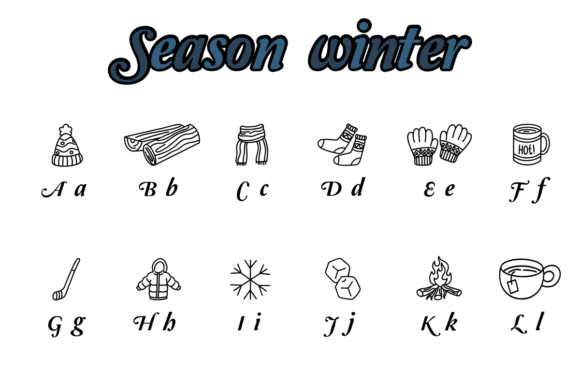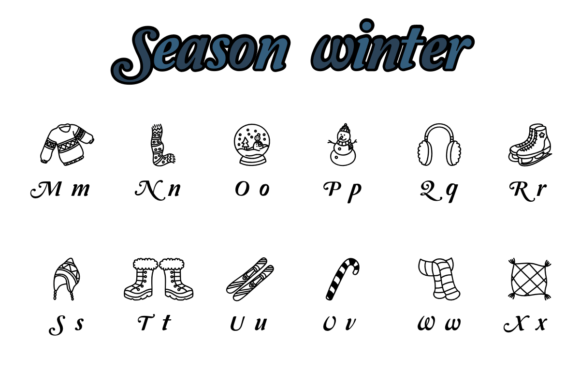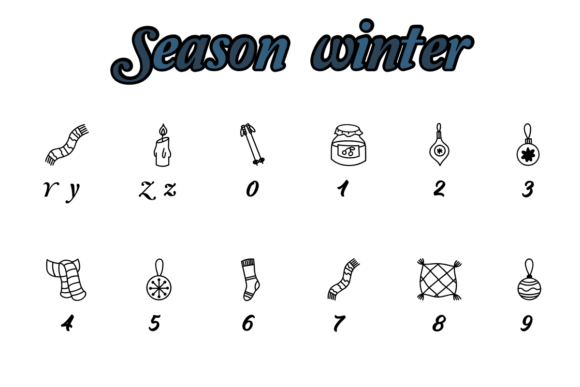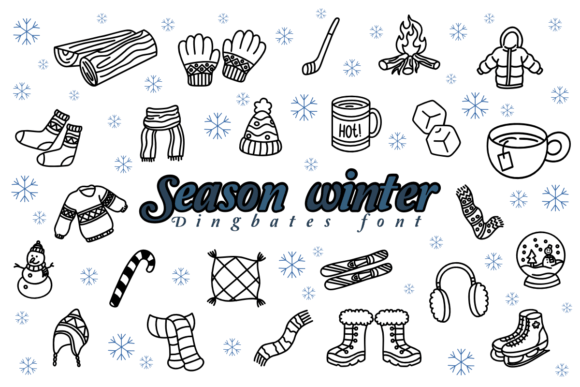
Introduction to Season Winter Font
This winter-themed dingbat font features symbols of cozy winter items and activities.
You’ll find cute images like snowflakes, mittens, ice skates, hot cocoa mugs, and snowmen Perfect for adding a touch of winter magic to your designs.